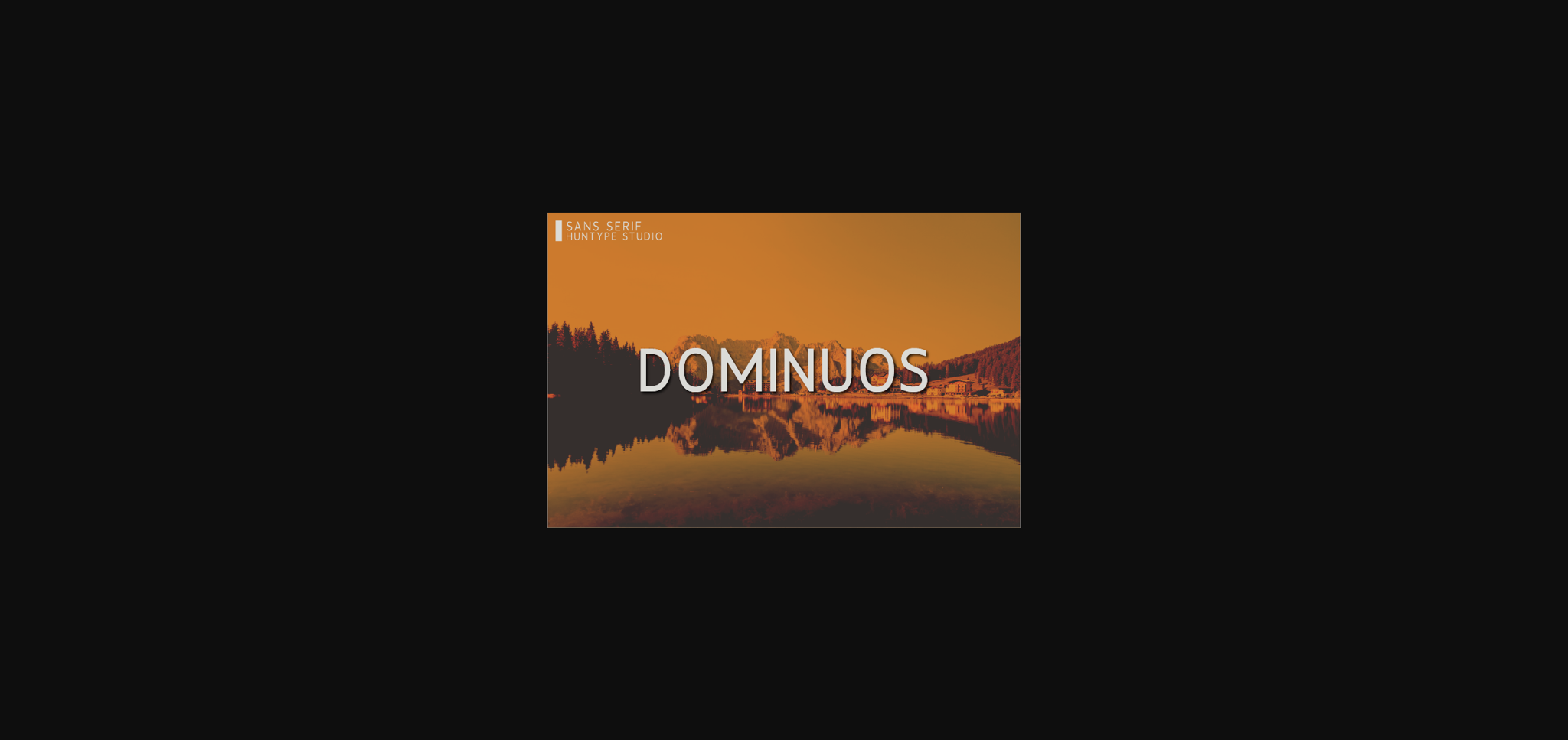
Dominuos is a simple and futuristic sans serif font. It has a clean, thin and smooth vibe and it will be a hit for any design that you want to add it to.